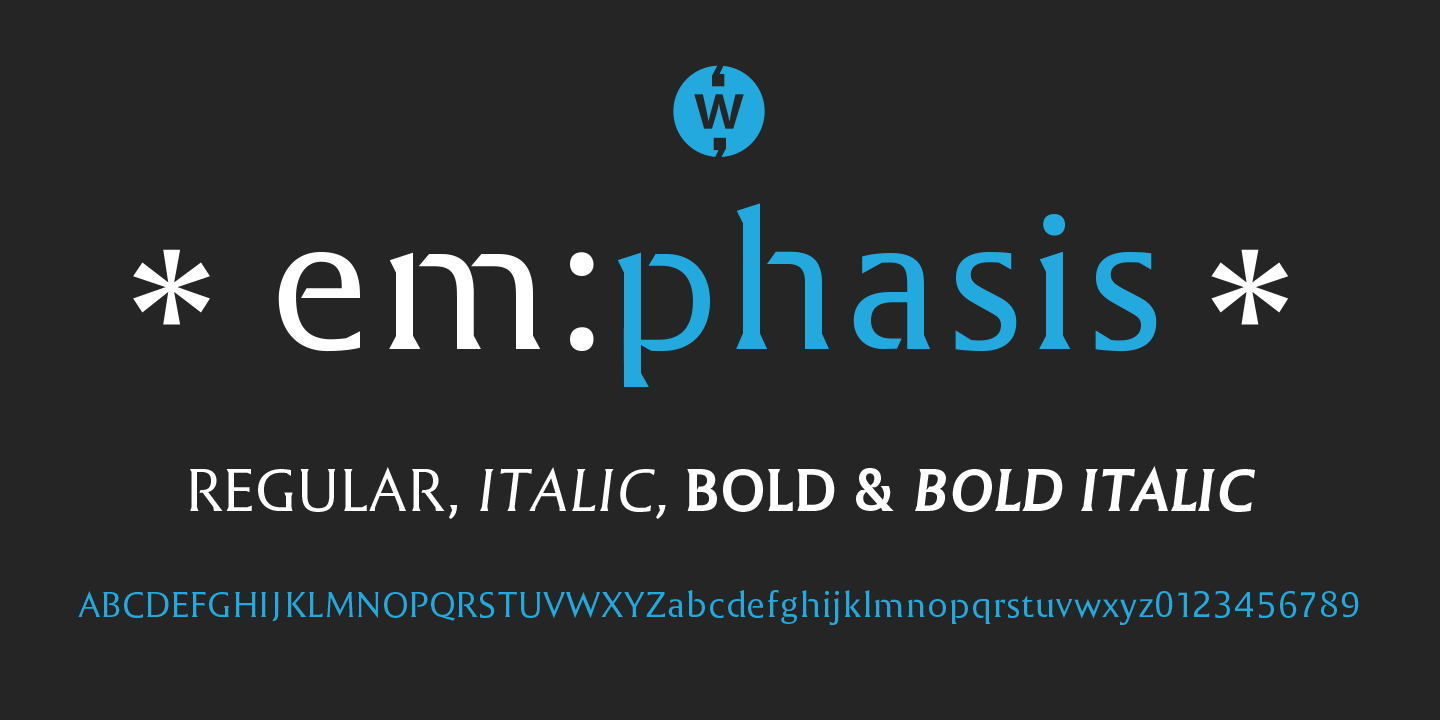
EM Font is a strikingly modern and minimalist typeface, renowned for its clean lines and highly legible structure. This contemporary sans-serif is a perfect choice for designers seeking to convey clarity, sophistication, and a forward-thinking aesthetic across a multitude of platforms. Envision it enhancing cutting-edge tech branding, sleek website interfaces, minimalist app designs, professional corporate presentations, impactful data visualizations, and modern editorial layouts. Its inherent simplicity and balanced proportions ensure excellent readability, making it ideal for both prominent headlines and detailed body text. EM Font excels in environments where precision, functionality, and a refined visual language are paramount, projecting an image of efficiency and understated elegance.
What makes EM Font truly exciting is its remarkable ability to achieve maximum impact with minimal fuss. It strips away unnecessary embellishments, focusing purely on form and function, which results in a timeless yet distinctly modern appeal. The subtle nuances in its geometry give it a unique character that prevents it from feeling generic, allowing it to convey a sense of intelligent design and contemporary sophistication. This font doesn't just display text; it enhances the message by providing a clear, unobtrusive canvas that lets your content shine. It’s a powerful tool for brands and individuals who value clarity, innovation, and a polished, professional image, ensuring their communication is both effective and aesthetically pleasing.
The EM Font family is typically comprehensive, offering a wide array of weights and styles to ensure maximum versatility for any design project. You'll often find it includes a full spectrum from light or thin to regular, medium, semi-bold, and bold, sometimes extending to ultra-bold or black weights. Corresponding italic styles are also commonly available, providing robust options for typographic hierarchy and emphasis. This extensive family ensures that EM Font Free Download can adapt seamlessly to diverse design challenges, from subtle captions to commanding headlines, all while maintaining a consistent and harmonious visual language. Its broad character set usually covers a wide range of Latin characters, numbers, and extensive punctuation, making it a reliable choice for international projects and complex textual layouts.